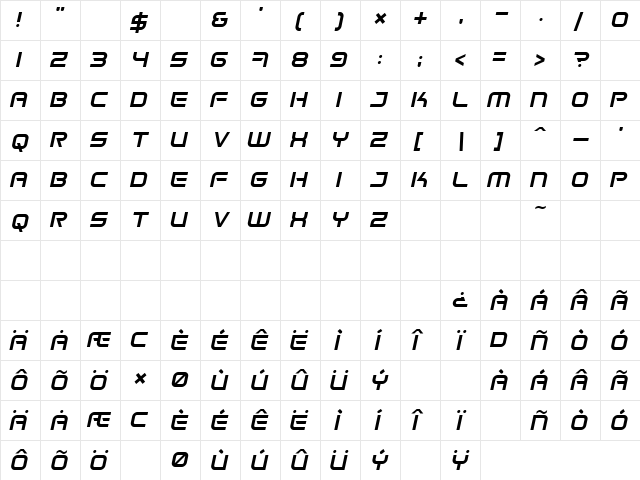
Space Frigate Italic
Design Context for Space Frigate Typeface
Space Frigate is a composed and adaptable typeface that performs quietly and consistently across a wide range of design contexts. Its italic angle brings a sense of urgency and motion to the letterforms.
Pro Tip: Use Space Frigate for emphasis, pull quotes, and subheadings where its slanted energy can add rhythm to the layout.